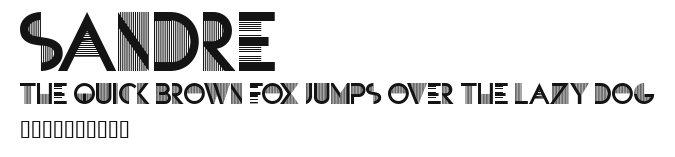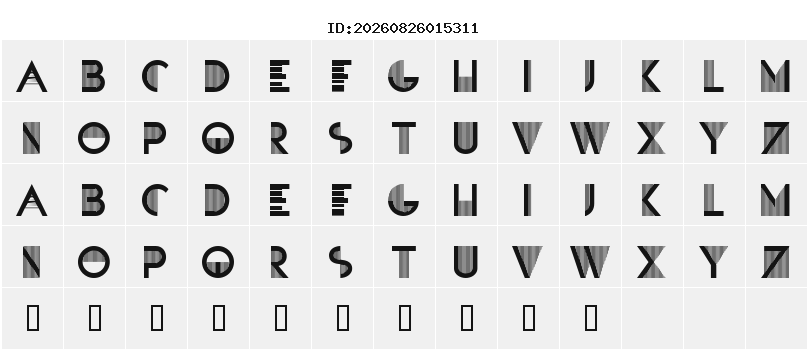
• Font Name: SANDRE
• Designer: Tano Veron
About SANDRE.ttf
SANDRE.ttf is a modern, elegant sans-serif font designed for ultimate readability and visual harmony. Perfect for branding, headlines, web design, and print materials.